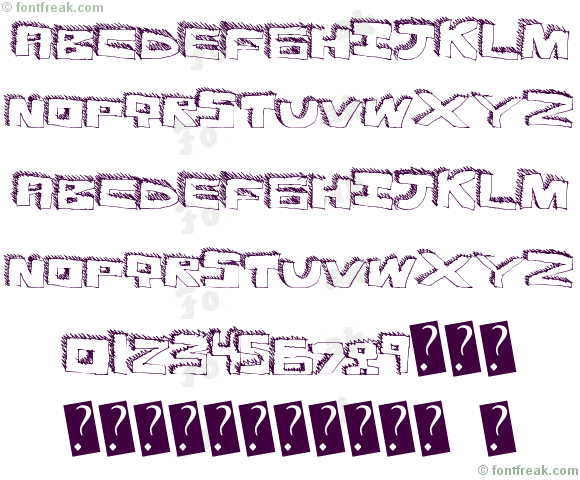
DurhShapes
DurhShapes, created by XEROGRAPHER FONTS in 2012, is a unique display font that captures attention with its distinctive and playful design. This font can be categorized as a decorative style, characterized by its irregular, hand-drawn appearance that adds a touch of whimsy to any project. The stroke weight varies throughout the letters, creating an engaging visual rhythm, while the contrast is moderate, enhancing readability without sacrificing style. The spacing is well-balanced, ensuring that each character stands out while maintaining coherence in text.
DurhShapes is particularly well-suited for a variety of creative applications. It shines in contexts such as vibrant movie posters, where its bold and unconventional form can convey excitement and energy. Additionally, this font is ideal for designing eye-catching restaurant menus that aim to attract diners with a fun and inviting atmosphere. It can also be used effectively in children's book covers, where its playful nature resonates with younger audiences. Graphic designers and content creators will find this font perfect for crafting unique branding materials, such as logos and promotional graphics, that stand out in a crowded marketplace.
What sets DurhShapes apart is its ability to blend creativity with functionality. The font’s unique character and charm make it a go-to choice for anyone looking to add a distinctive touch to their designs. Whether you're working on a fun event flyer or a quirky social media post, the DurhShapes font free download offers a fresh and engaging option that will elevate your work.